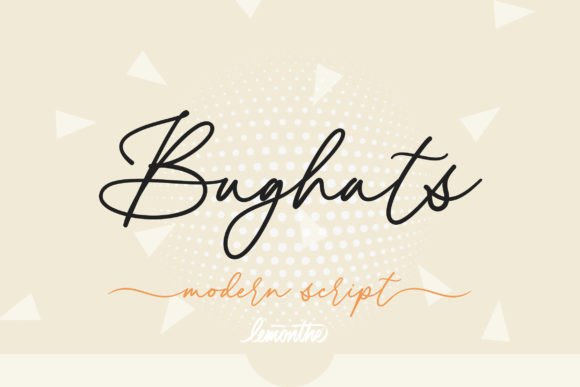
The Designer’s Delight: Unveiling the Elegance of Bughats Font
I’ll never forget the moment I stumbled upon Bughats Font while working on a high-end branding project for a luxury client. The brief was simple: create a sophisticated, elegant look that exudes refinement and poise. As I scoured the internet for the perfect font, I found myself stuck in a sea of generic sans-serifs and overused script fonts. That was until I discovered Bughats – a true gem that instantly elevated my design game.
So, what makes Bughats Font so special? Let’s dive into the details:
- ✨ Exquisite Handwritten Style: Bughats boasts a beautiful, handwritten aesthetic that’s both classy and contemporary.
- 🔥 Versatility: Use Bughats for a wide range of projects, from branding and packaging to wedding invitations and social media graphics.
While Bughats is an exceptional font, it’s not without its quirks:
- 🤔 Limited Use in Small Sizes: Due to its intricate design, Bughats may not be the best choice for body text or small font sizes.
- ⚠️ Occasional Kerning Issues: As with any font, you may encounter some kerning issues – especially when using certain character combinations.
The Story Behind Bughats: A Glimpse into the Designer’s Inspiration
While the true story behind Bughats remains a mystery, it’s easy to imagine that its designer was inspired by the world of luxury calligraphy and high-end typography. Perhaps they spent countless hours pouring over vintage manuscripts, elegant wedding invitations, and sophisticated branding materials. Whatever the inspiration, Bughats is a true masterpiece that showcases the beauty of handwritten typography.
| Is Bughats suitable for body text or small font sizes? | While Bughats is an exceptional font, it’s best suited for headlines, titles, and large font sizes due to its intricate design. |